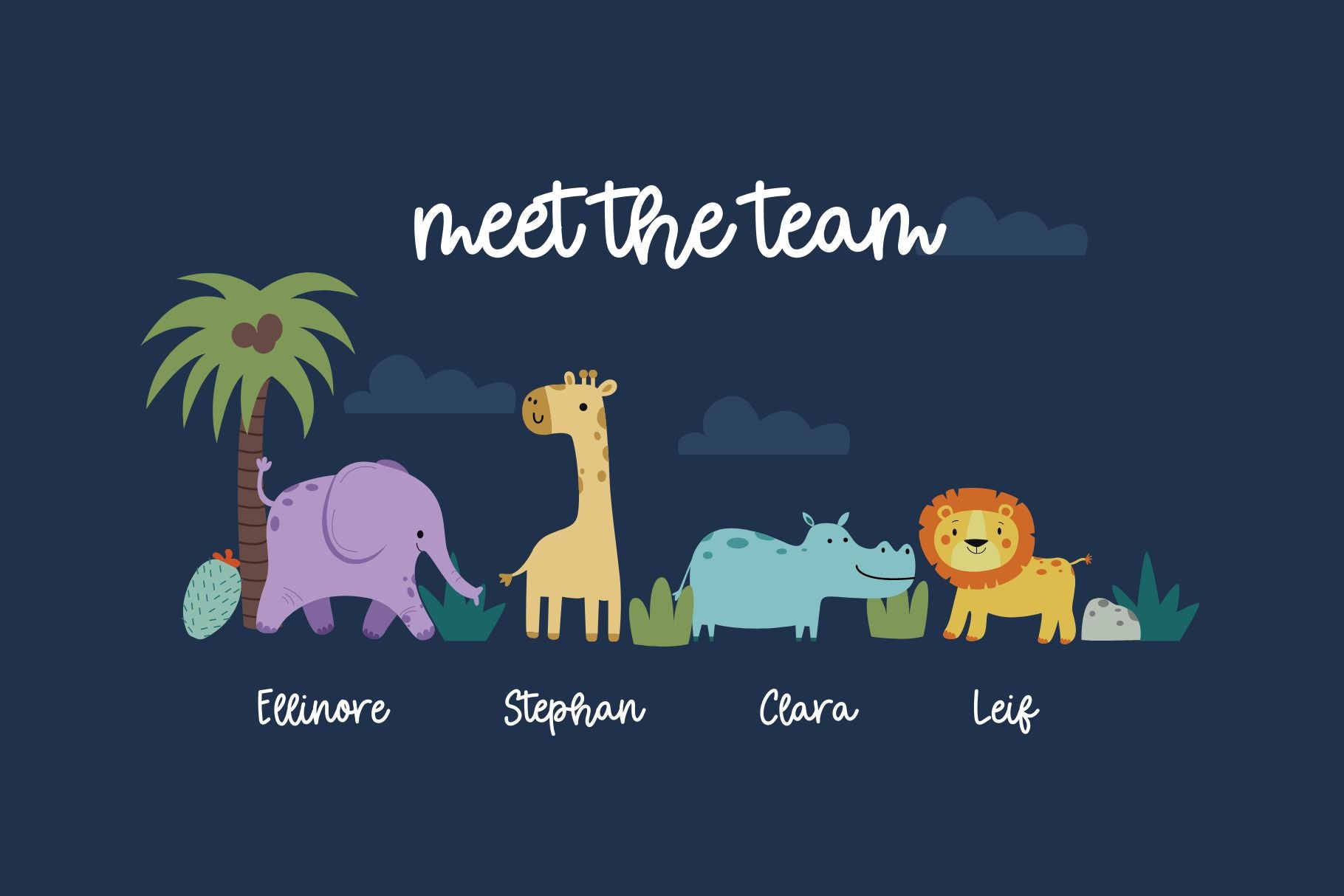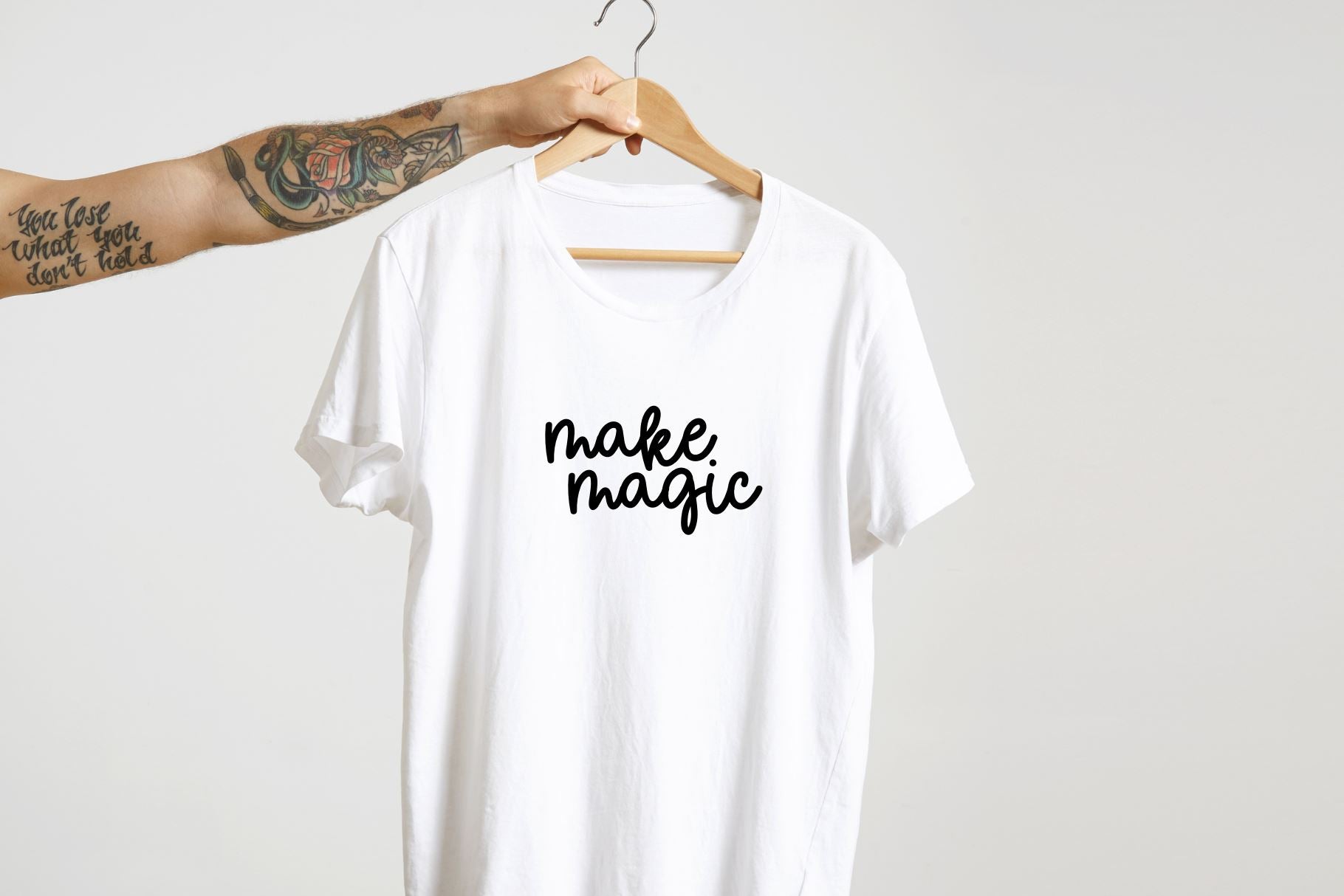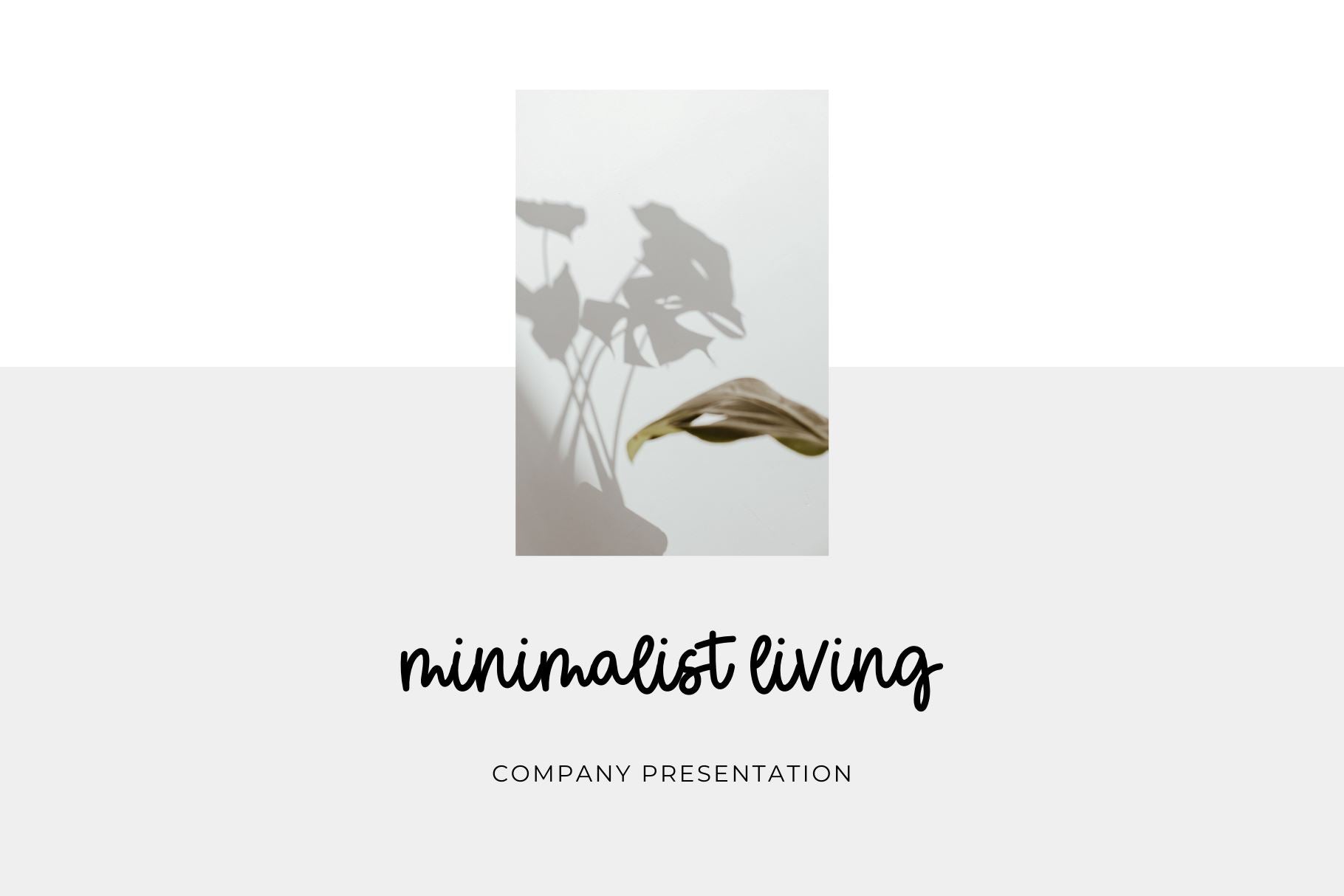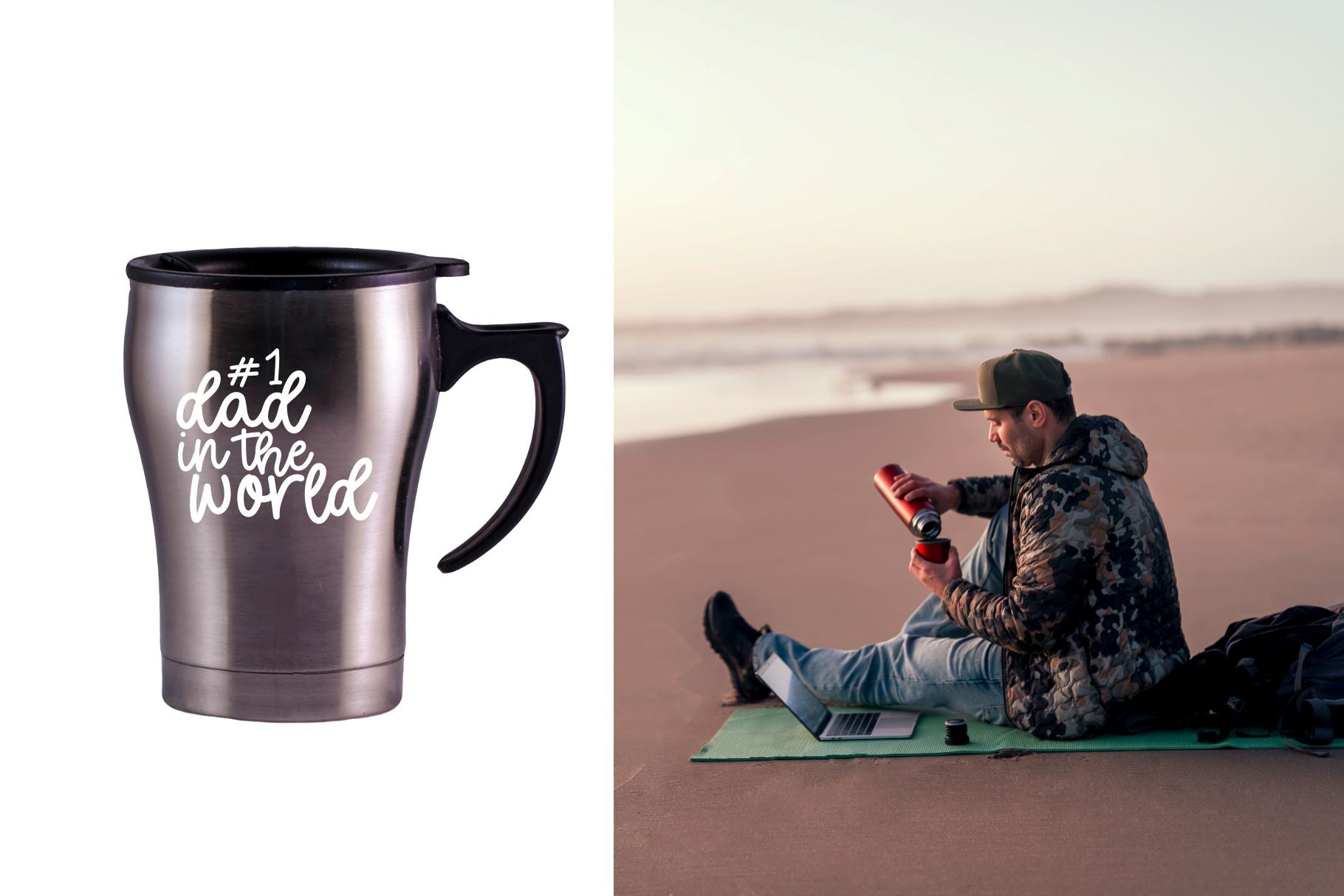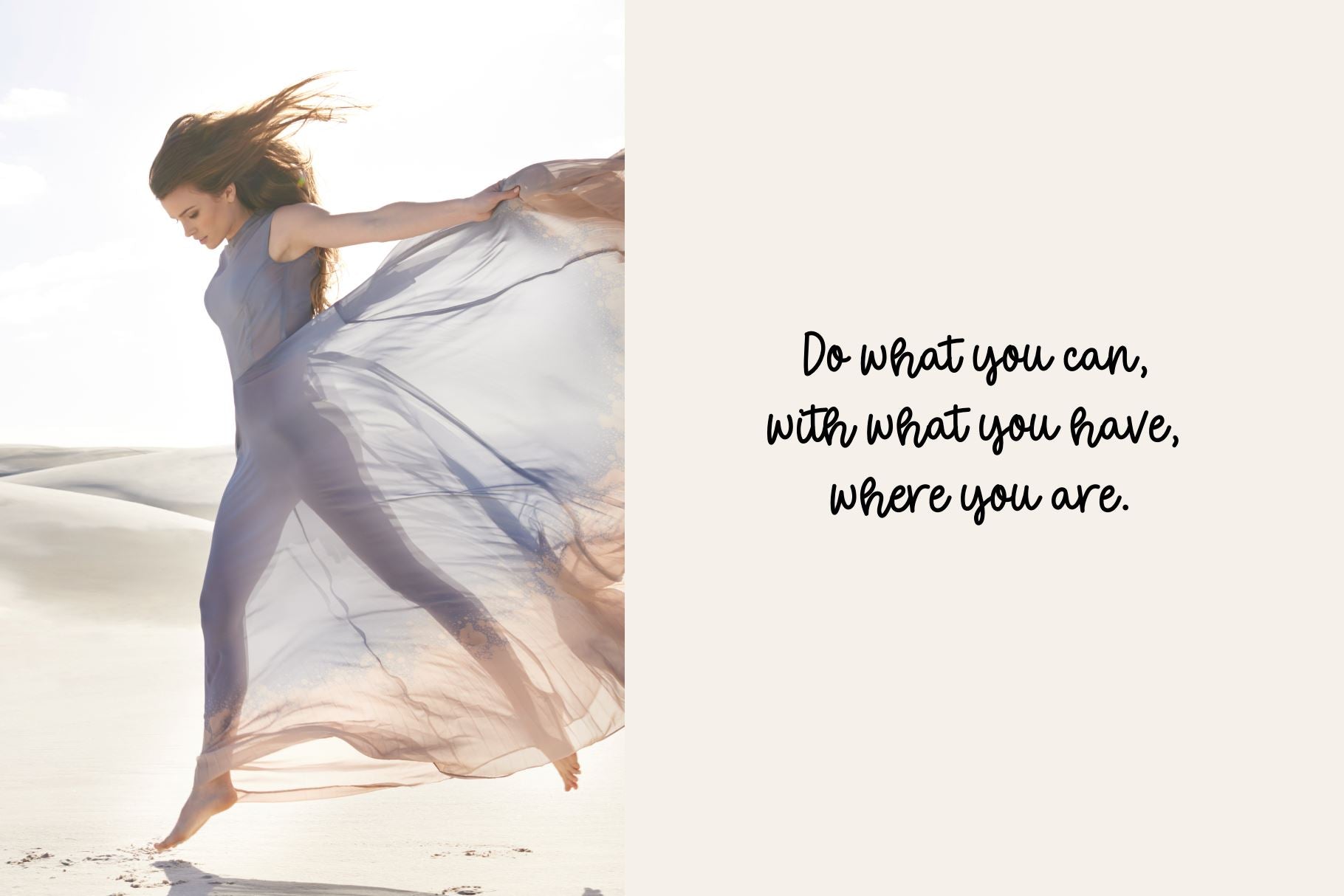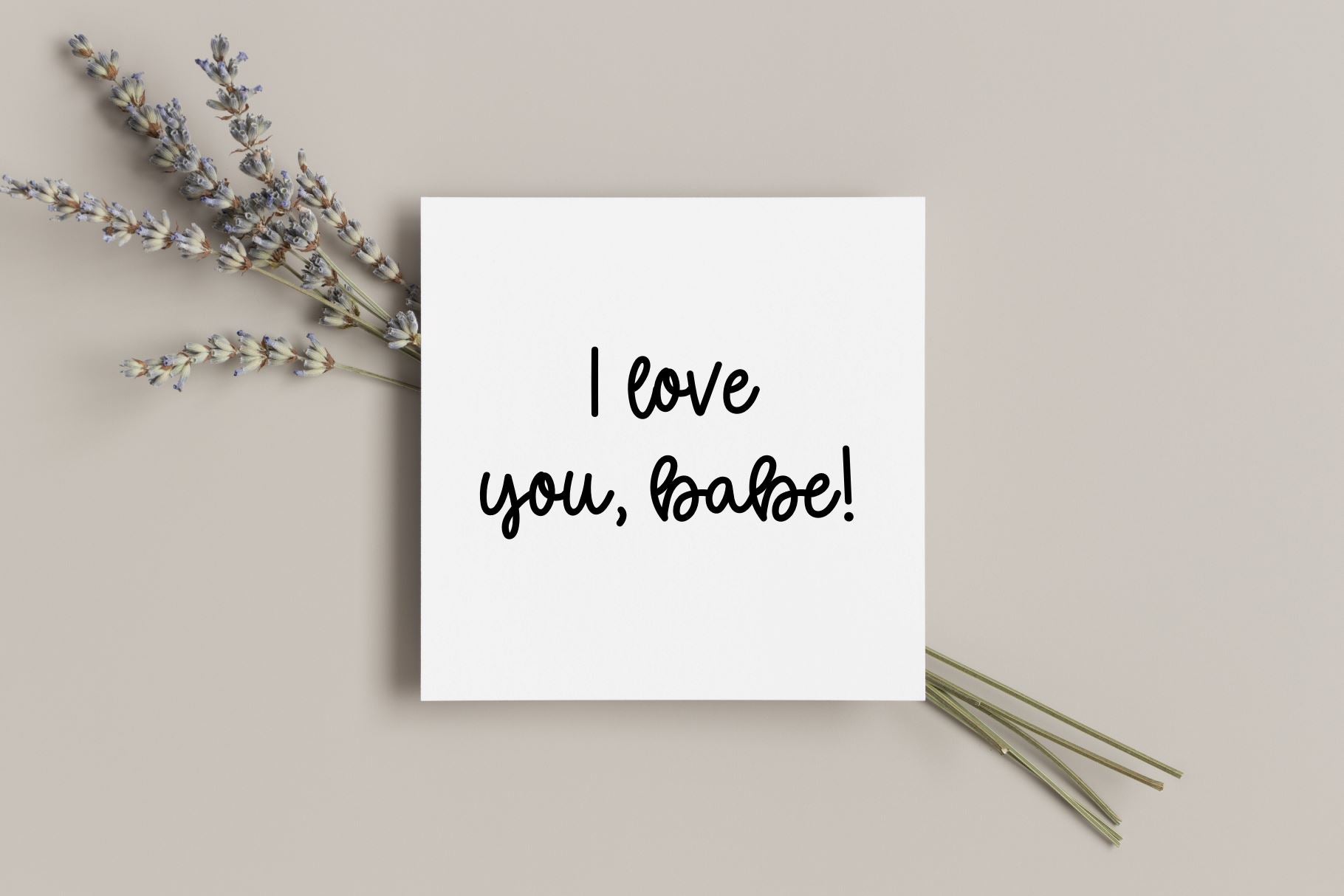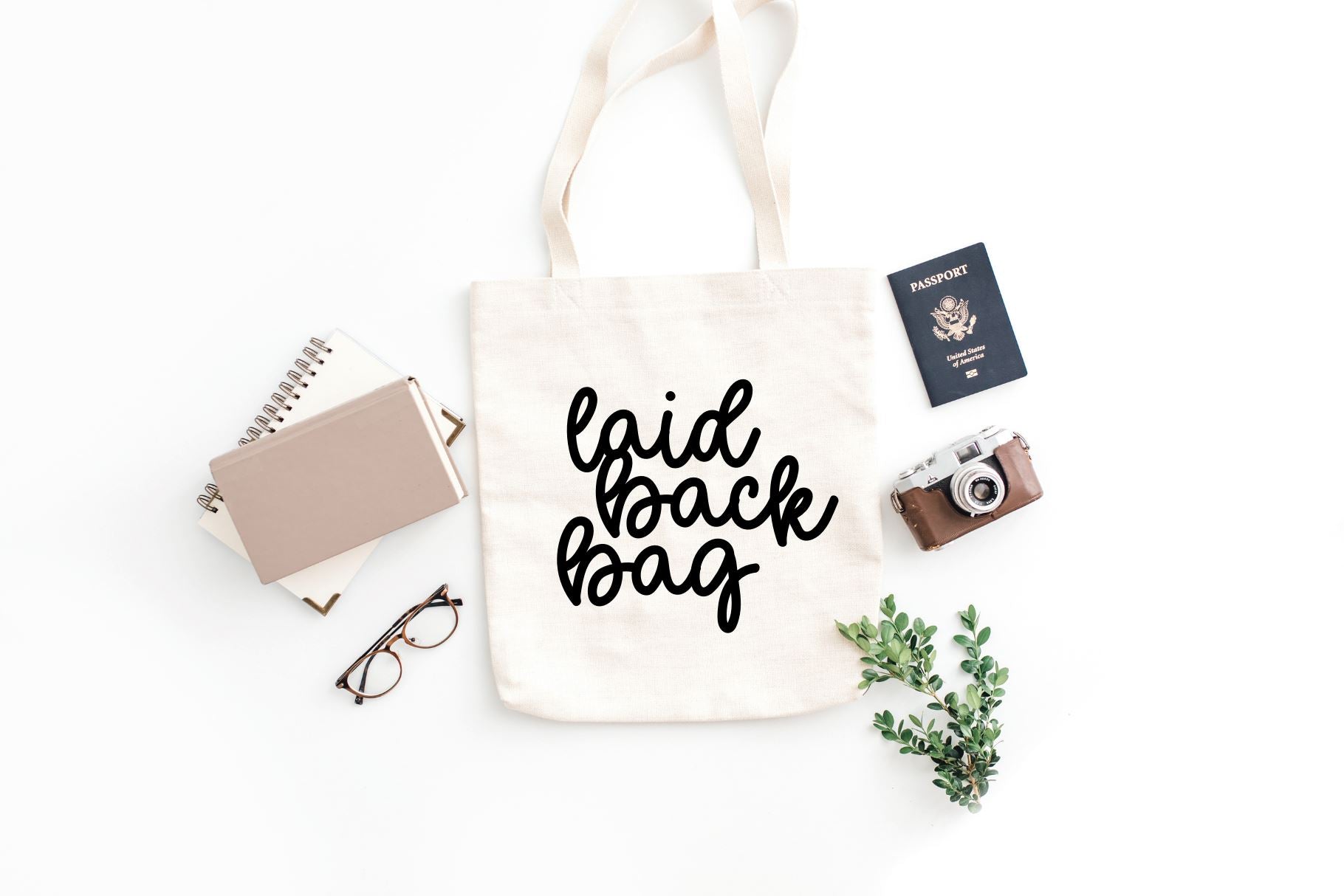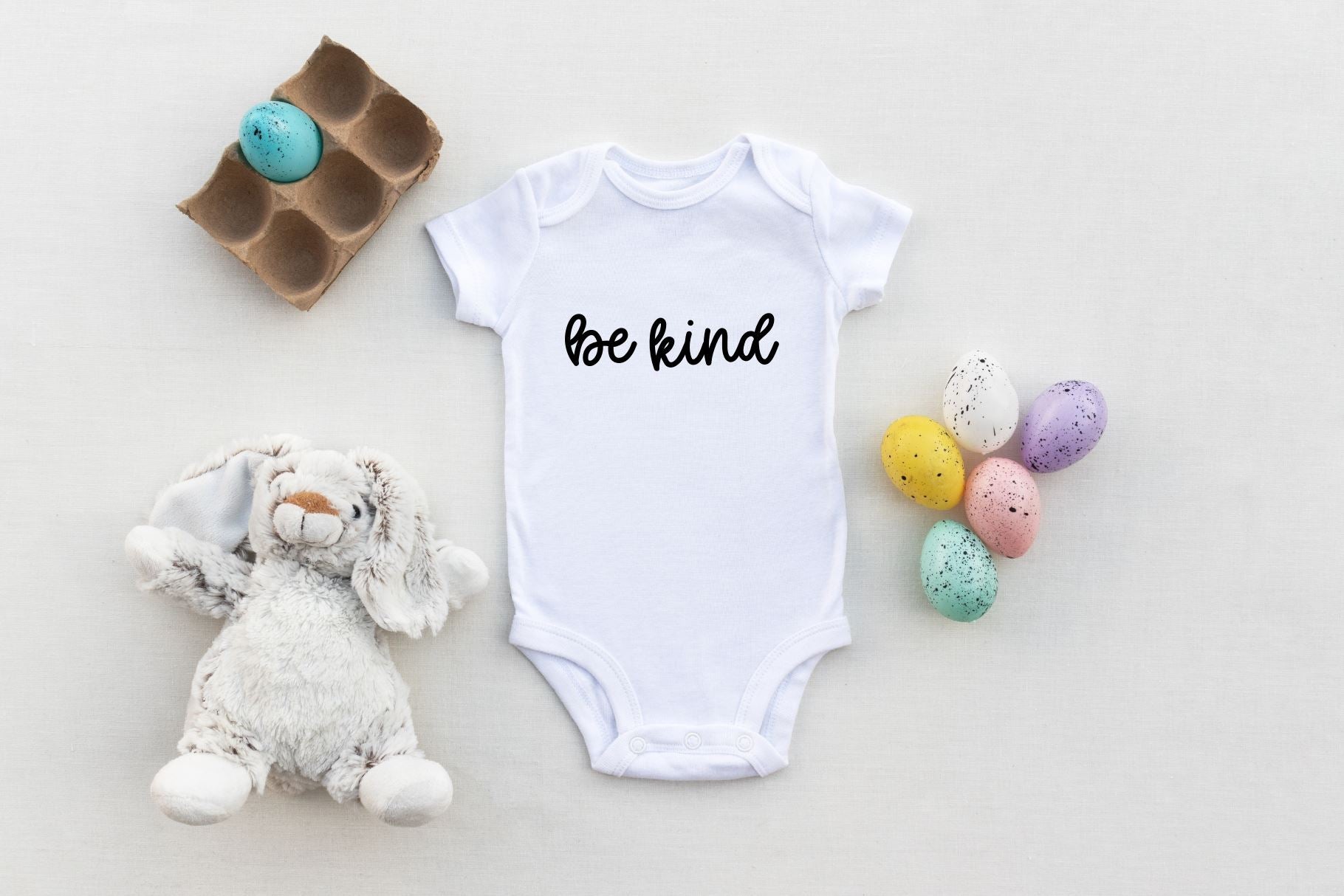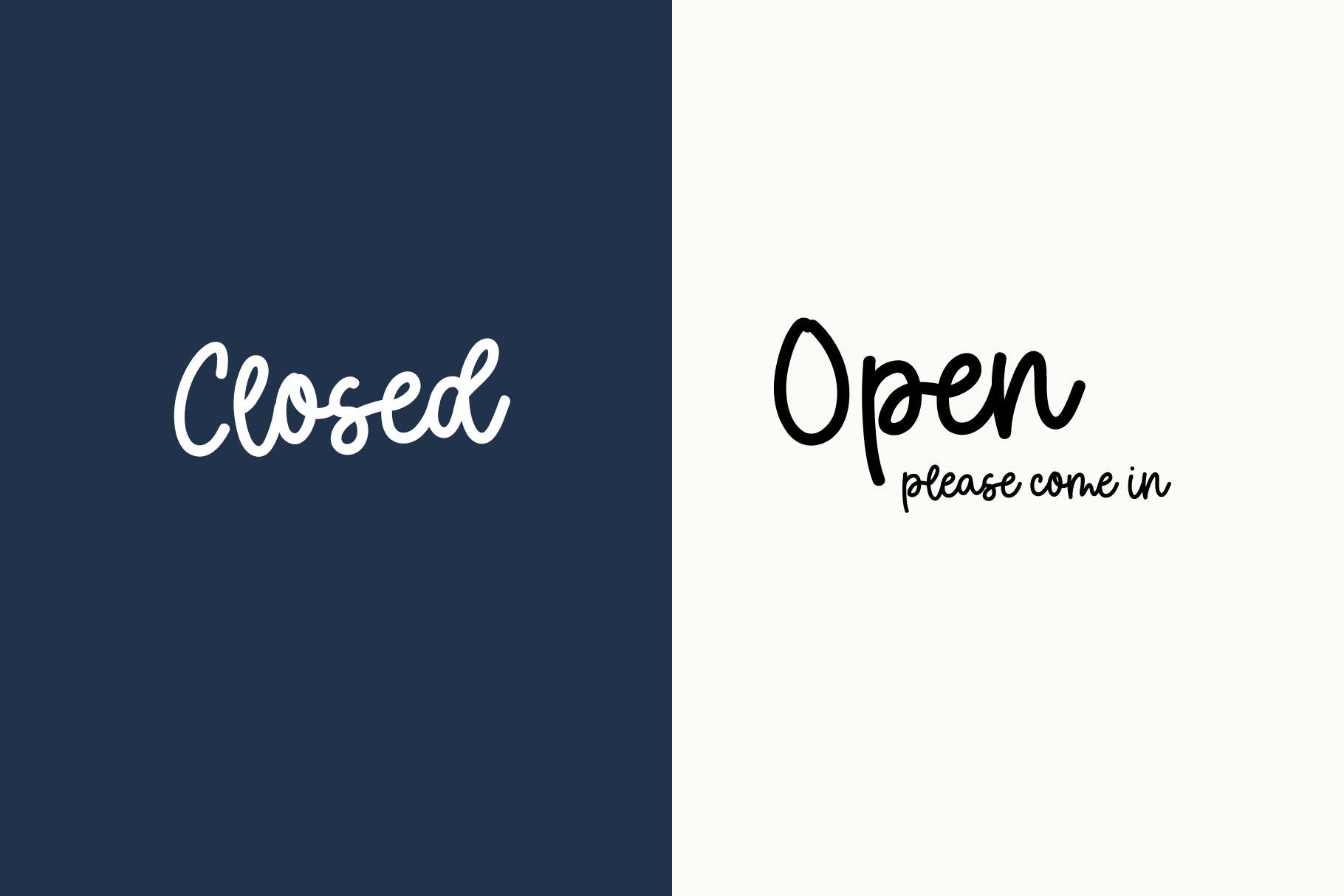
Bubble Tea, Cute and Bouncy Font
Add a beautiful, hand crafted look to your work with the fabulously Bubble Tea, a Cute and Bouncy Font. A hand drawn font that will add a uniq touch to your work. This font is perfect for your; crafty projects feminine graphic tee shirt design & other apparel clean print design, like magazines + flyers header or elements that need a handwritten touch logos + branding holiday cards or greeting cards website and blogs quote graphics for social media You’ll receive this fonts in TTF, OTF, WOFF and WOFF2 Uppercase Letters Lowercase Letters Numbers & Punctuation Characters included in each font: a b c d e f g h i j k l m n o p q r s t u v w x y z A B C D E F G H I J K L M N O P Q R S T U V W X Y Z 0 1 2 3 4 5 6 7 8 9 . , : ; ! ? ‘ \” ‘ ’ “ ” @ _ & # % * + – × ÷ = ~ < > / ( ) { } [ ] $ ¢ € £ ¥ © ®